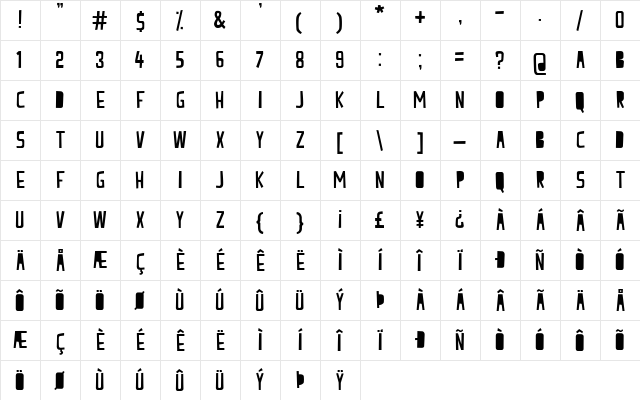
Peach Milk Regular
Foundry: Fr￿ric Rich
Designer: Fr￿ric Rich
Design Context for Peach Milk
Peach Milk is a composed and adaptable typeface that performs quietly and consistently across a wide range of design contexts.